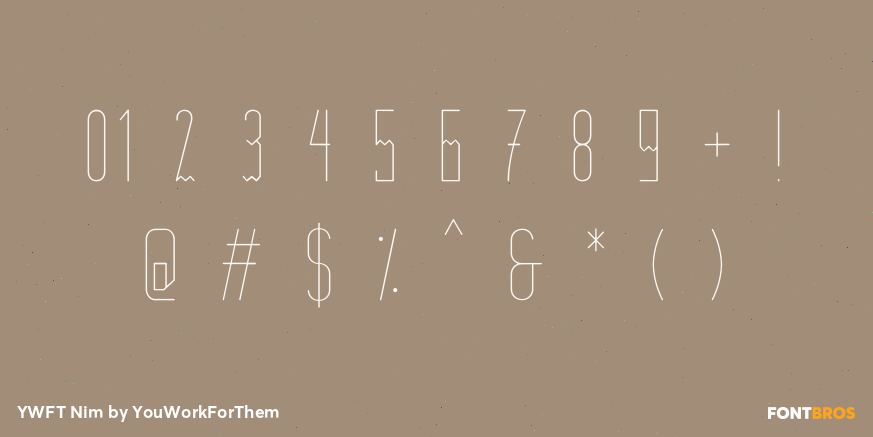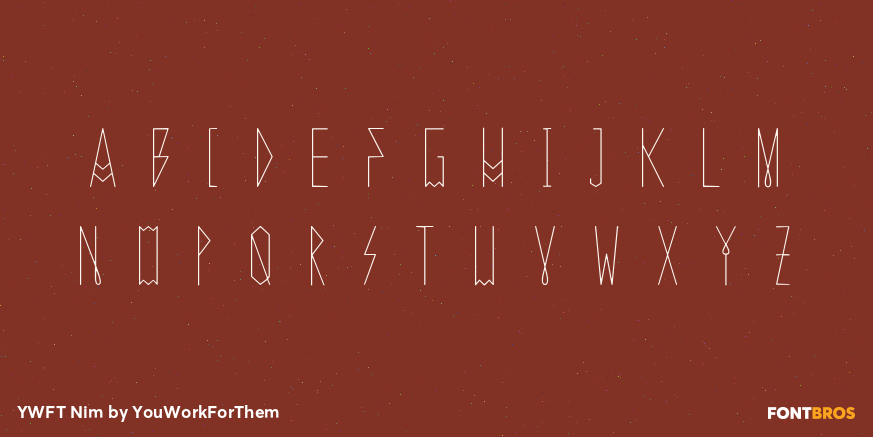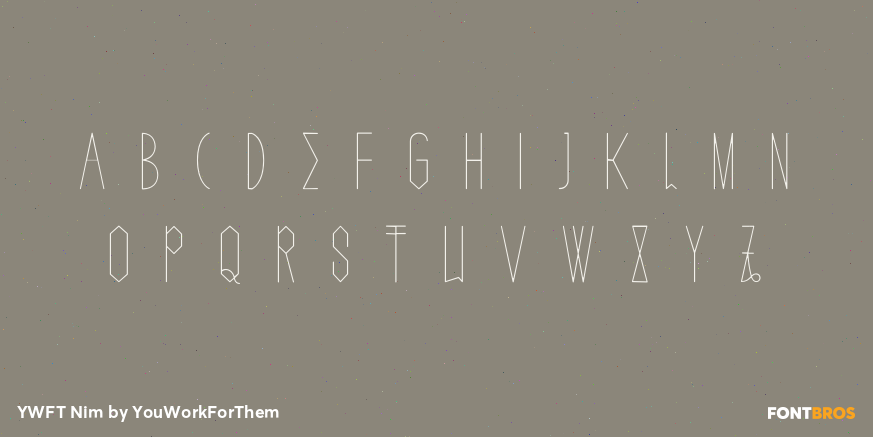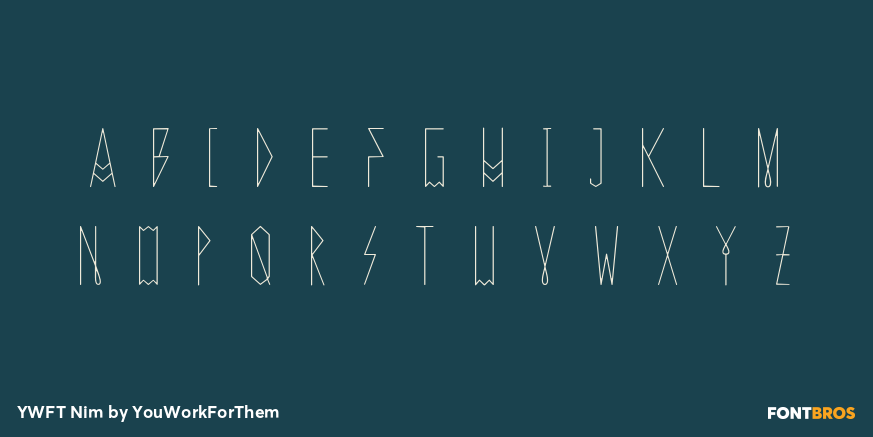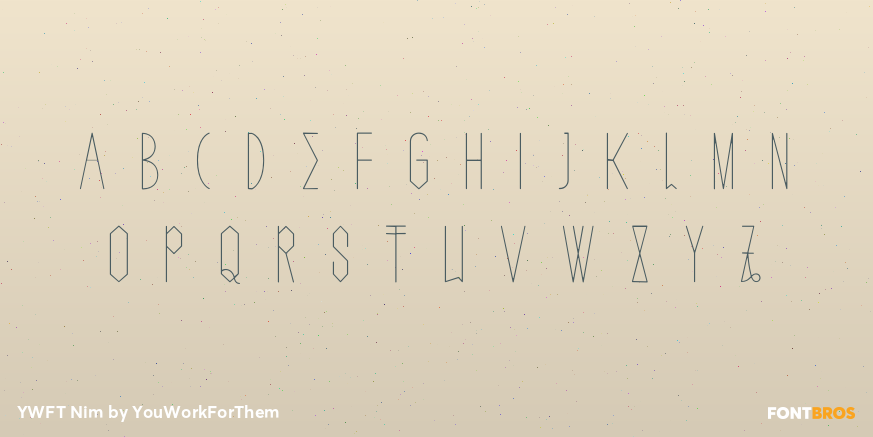
YWFT Nim
Font Family by YouWorkForThem
YWFT Nim is all about layering. Bevel effects, outline effects, 3d effects, shadow effects--all are possible and uniquely powerful with YWFT Nim, making for a near-infinite amount of variety and style. Modern and clean, with a nod to architectural forms and figures, YWFT Nim is ideal for striking headlines and posters, and declarative of a strong, individual functionality.
Designed by YouWorkForThem